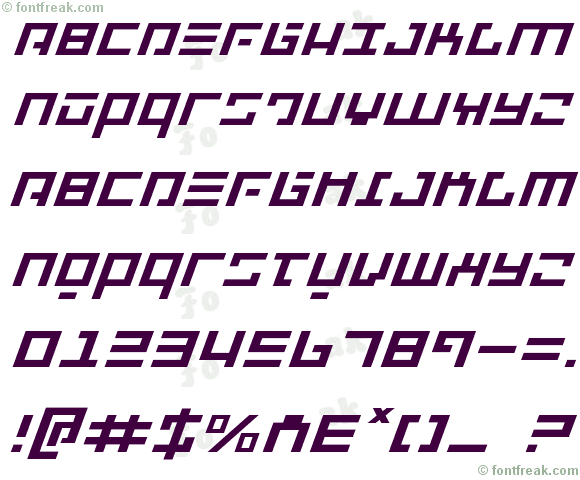
Repulsor Italic
About Repulsor Italic
Repulsor Italic, designed by Daniel Zadorozny in 2009, is a striking display font that falls under the category of decorative typefaces. Its unique aesthetic showcases bold, geometric forms with a distinctive italic slant, providing a dynamic visual appeal. The font features a consistent stroke weight that is robust yet balanced, contributing to its modern look. The contrast between thick and thin lines adds depth, while the angular shapes provide a sense of movement, making it an eye-catching choice for various design projects.
Repulsor Italic is particularly well-suited for a range of creative applications. It excels in crafting attention-grabbing movie posters, where its bold character can evoke excitement and intrigue. Additionally, this font can enhance the visual identity of technology brands, making it ideal for product packaging and promotional materials. Its unique design also makes it a great option for video game graphics, where a futuristic vibe is desired. Graphic designers and small business owners looking to create striking marketing materials will find this font invaluable.
Content creators, especially those in the realms of digital media and advertising, can leverage the Repulsor Italic font for engaging social media graphics and banners. The font's distinctive style stands out in crowded spaces, ensuring that messages are not only seen but also remembered.
What truly sets Repulsor Italic apart is its ability to merge functionality with artistic expression. The font captures attention while remaining legible, making it a versatile tool for any designer's arsenal. With the Repulsor Italic font free download available, there's no better time to elevate your typography game and explore the creative possibilities this font has to offer.